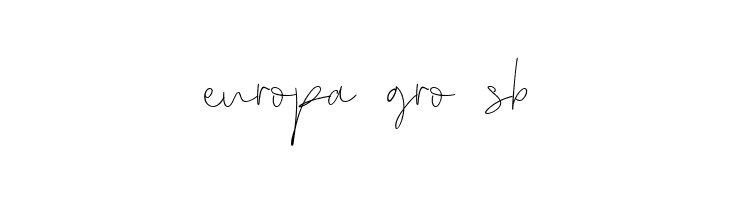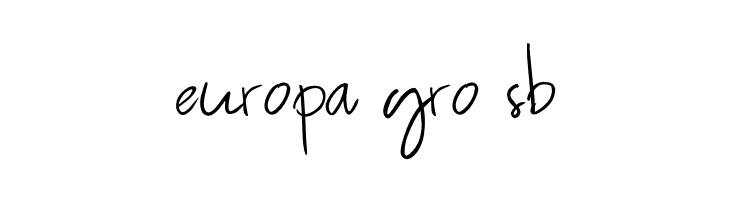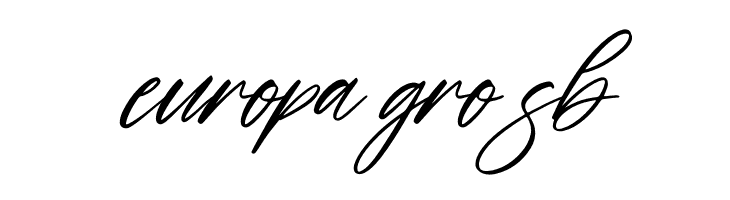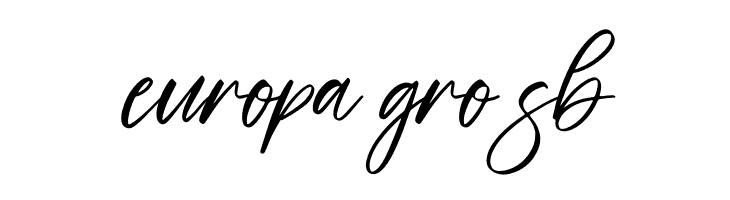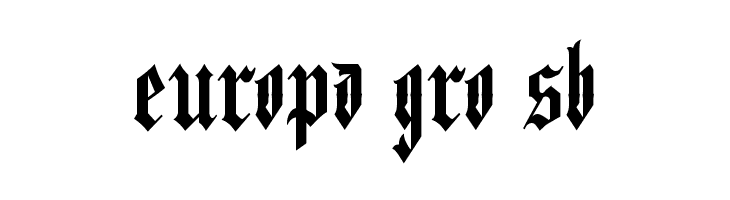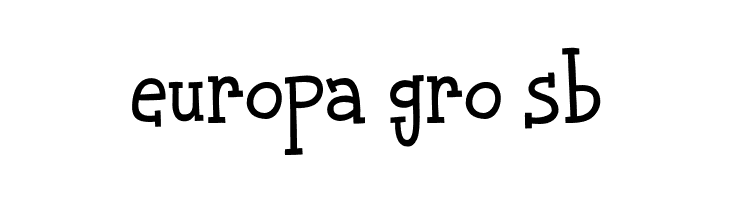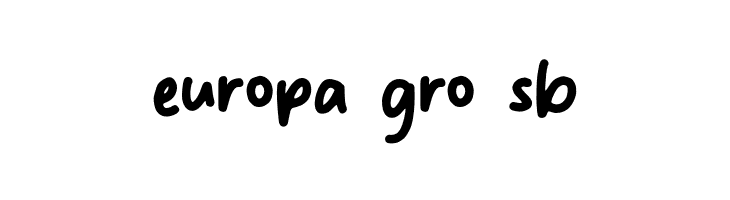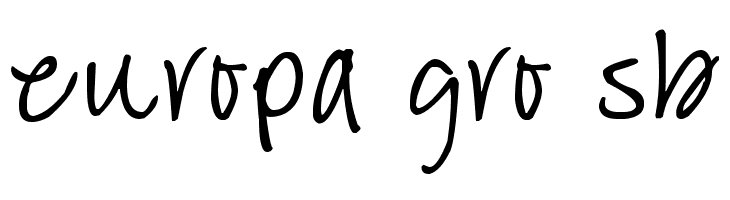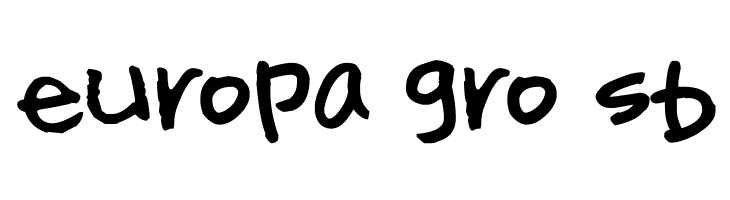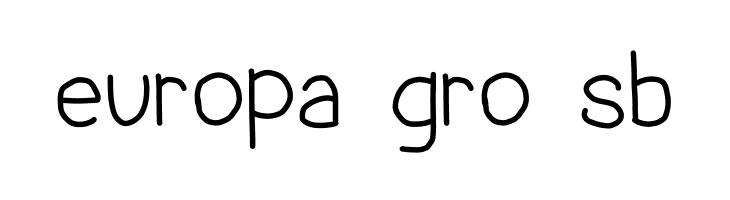
A playful, hand-drawn font with bold, rounded strokes and an informal style.
A casual, handwritten font with a playful and informal style.
A playful, handwritten font with tall, narrow letters and a casual style.
A playful, handwritten font with tall, narrow characters and uneven strokes.
A bold, Gothic blackletter font with high contrast and ornate detailing.
A bold, playful handwritten font with rounded, irregular letterforms.
A casual, handwritten font with a playful and informal style.
A playful, hand-drawn font with dynamic strokes and an artistic feel.
A playful, casual handwritten font with rounded, smooth letterforms.
A playful and whimsical script font with decorative loops and swirls.
A bold, playful handwritten font with a casual and friendly style.
A playful, bold handwritten font with a casual and dynamic style.
A playful, handwritten font with rounded, consistent strokes and a casual feel.
A bold, distressed font with a vintage, hand-printed appearance.
A bold, stencil-style font with strong, thick strokes and distinct cutouts.
A thin, handwritten font with a casual and elegant style.
A fluid, elegant script font with dynamic, connected strokes.
A fluid and elegant script font with smooth, connected strokes.
A decorative font featuring hand shadow puppets for a playful and creative touch.
A bold, decorative font with vintage-inspired outlined letters and shadow effects.
A bold, shadowed font with a three-dimensional effect, perfect for decorative use.
A hand-drawn slab serif font with a playful and elegant style.
A casual, handwritten font with smooth, fluid strokes and medium weight.
A playful, hand-drawn font with a whimsical and casual style.
A bold, geometric stencil font with a modern, industrial feel.
A bold, dynamic script font with sharp, angular strokes.